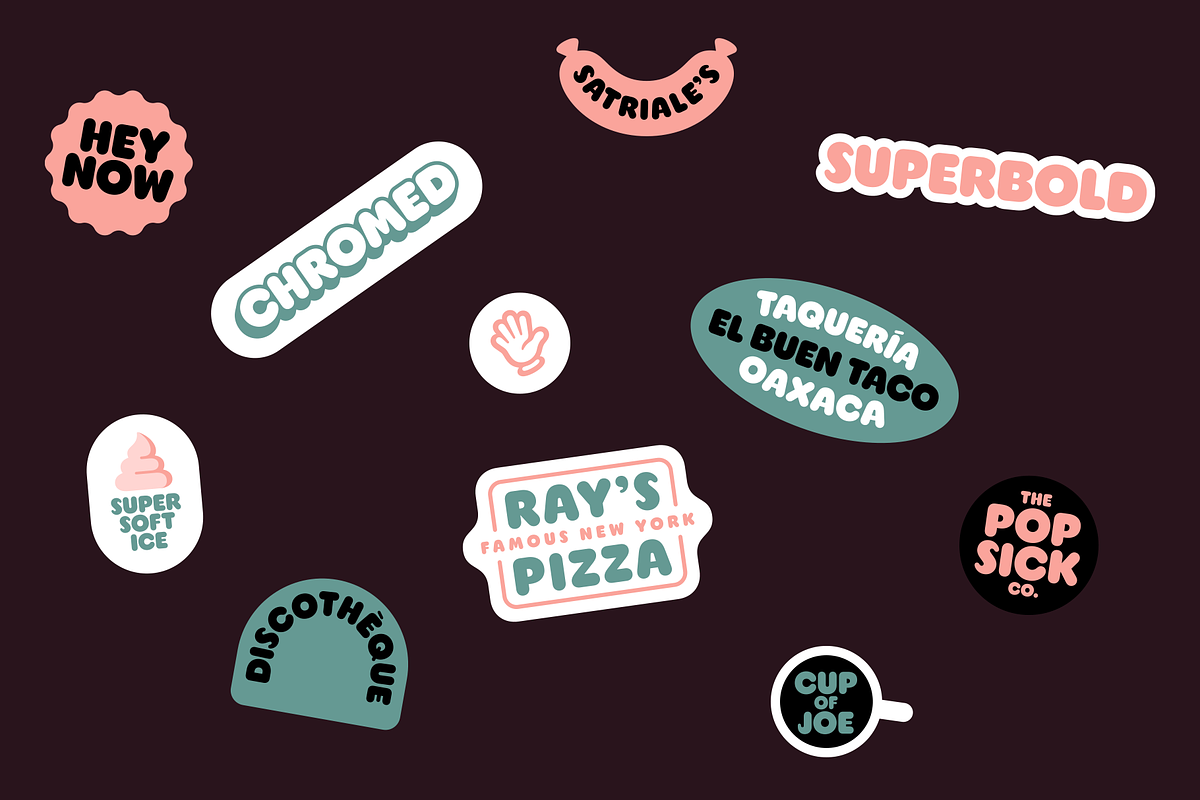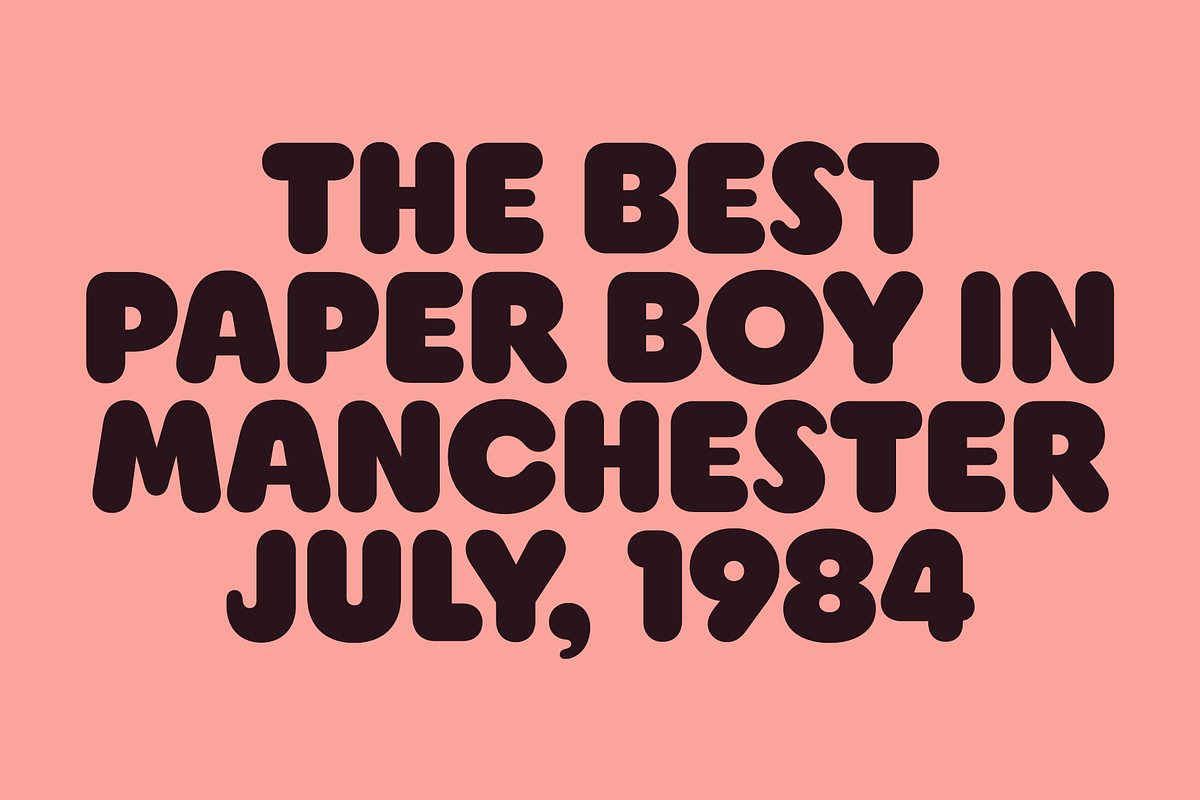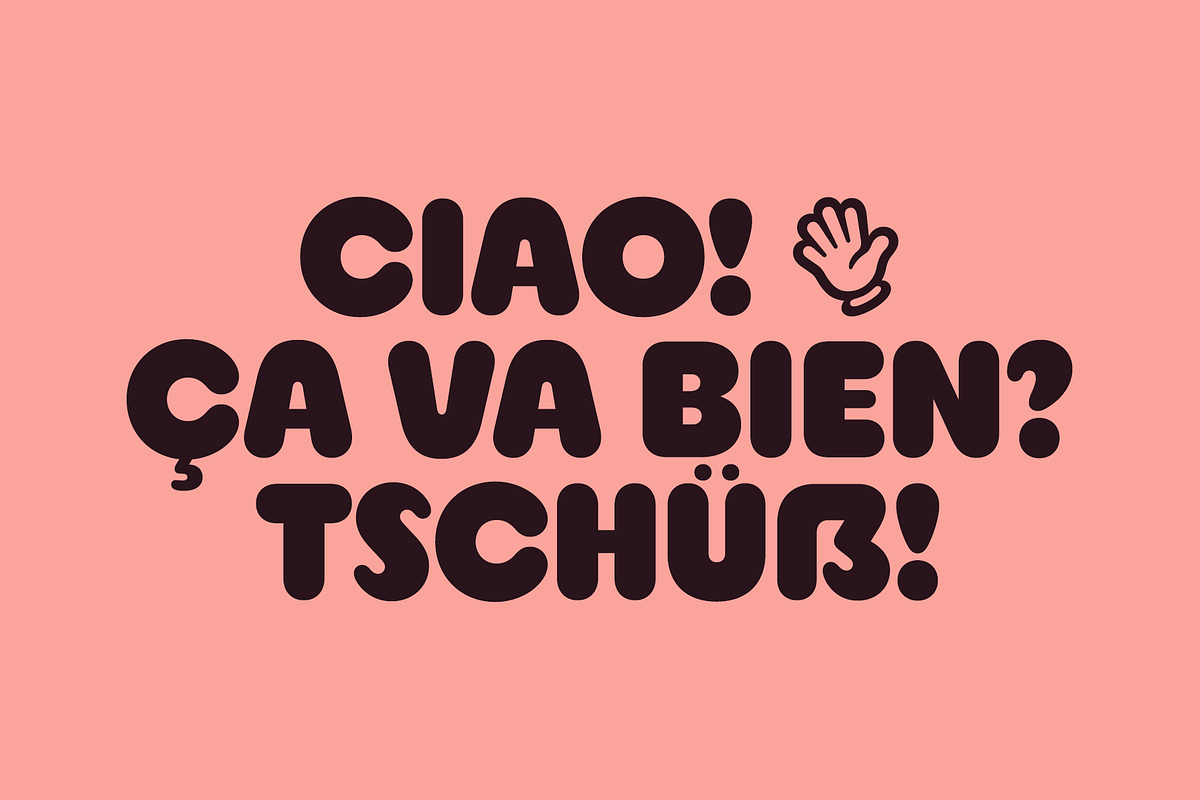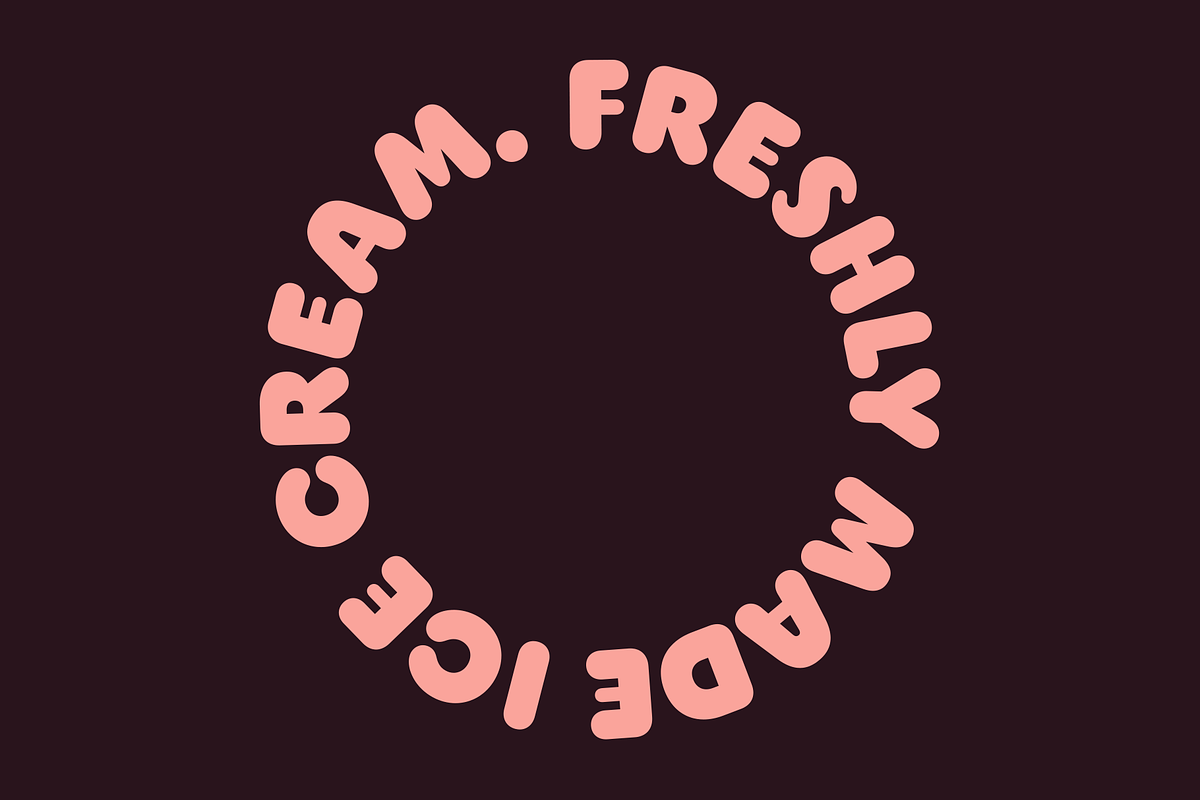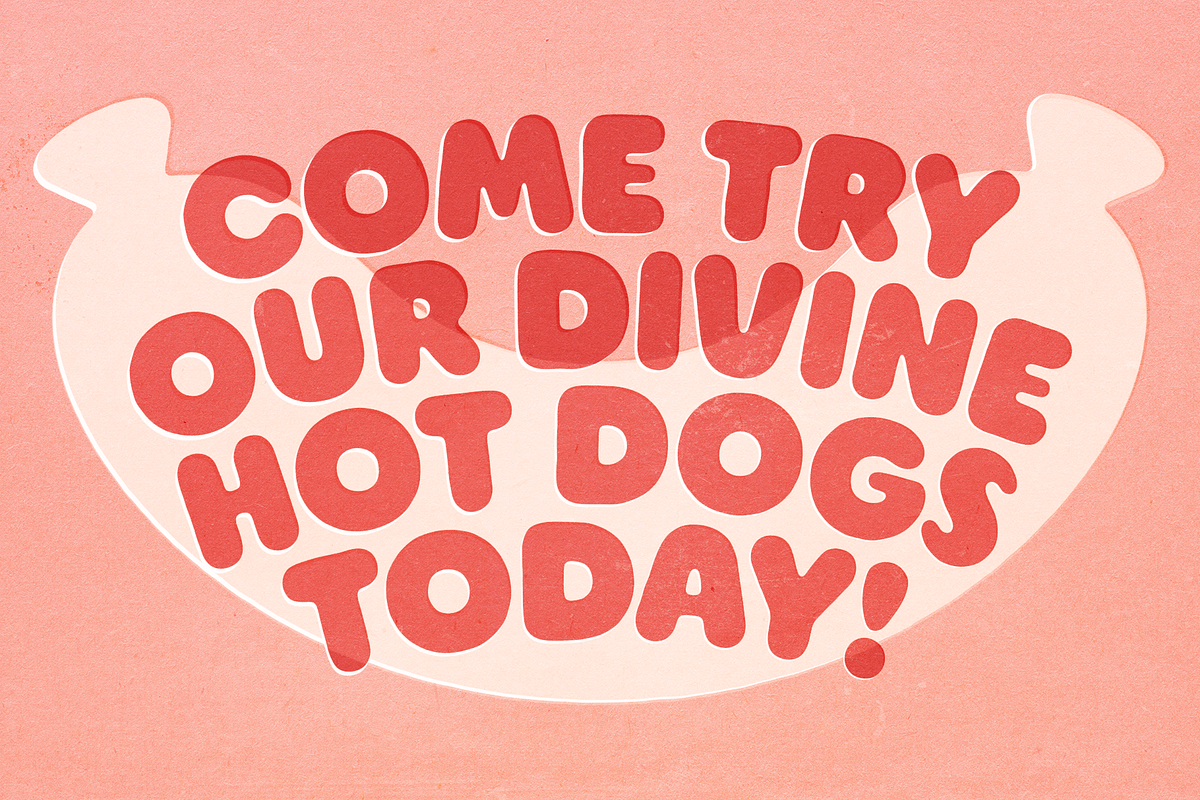
Inspired by bold and rounded typefaces on signs from the 1970s, Salsiccia can promote both your hot dog stand and your international toy store enterprise. Its boldness and roundness is combined with classical proportions, with wide letters—like the O—next to little nubby ones—like the T. This not only looks good, but helps us even out the white spaces across words and sentences.